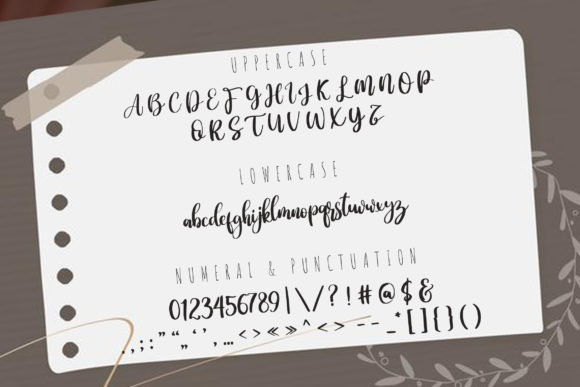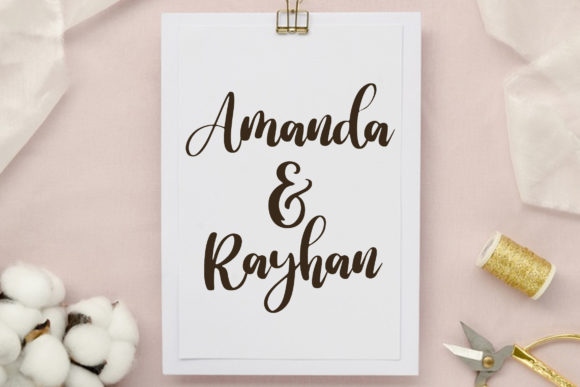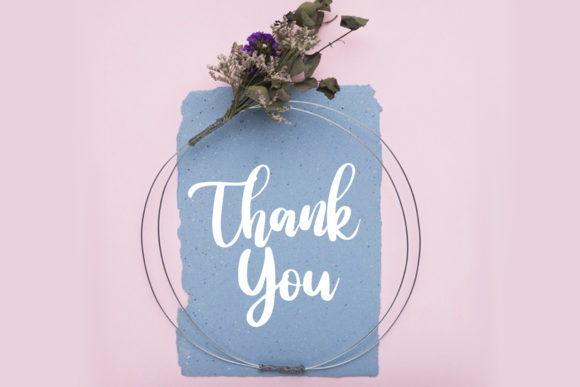
About Amanda Font
Introducing “Amanda,” a sweet and delicate handwritten font that will bring a touch of elegance and joy to your design projects. With its dainty and graceful letterforms, this font is the perfect choice for writing wedding invitations, cards, or any other design that requires a romantic and personalized touch.
The beauty of “Amanda” lies in its delicate and joyful nature. Each letter is meticulously crafted to exude a sense of elegance and charm. The fine strokes and gentle curves create a harmonious flow, capturing the essence of romance and celebration. Whether used in wedding invitations, love letters, or heartfelt cards, “Amanda” adds a touch of sweetness and sentimentality to your designs.
One of the standout features of “Amanda” is its versatility. It can be easily paired with other fonts or used on its own, allowing you to create beautiful and personalized compositions. Whether you’re designing a complete wedding suite, crafting heartfelt messages, or simply adding a touch of elegance to your designs, “Amanda” will bring your vision to life.
The delicate nature of “Amanda” also makes it a perfect choice for other design projects. Whether you’re creating greeting cards, stationery, or social media graphics, this font adds a touch of warmth and personalization. Its charming and handcrafted feel sets it apart and captures the attention of the viewer, creating a memorable impression.
With “Amanda,” you have the freedom to express your creativity and infuse your designs with a sense of intimacy and romance. Its versatility and delicate beauty make it suitable for a wide range of projects. Whether you’re a professional designer or a DIY enthusiast, “Amanda” offers endless possibilities to create stunning and personalized designs.
Embrace the sweetness and elegance of “Amanda” and let it add a touch of romance and joy to your design projects. Whether you’re designing wedding invitations, heartfelt cards, or any other creative endeavor, “Amanda” will bring a sense of delight and personalization to every piece. Explore the beauty and versatility of “Amanda” and let your creativity soar with this sweet and delicate handwritten font.